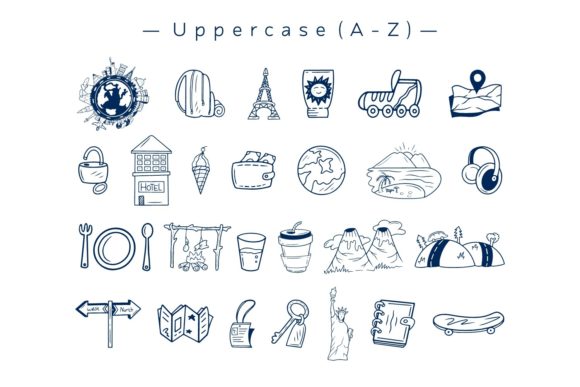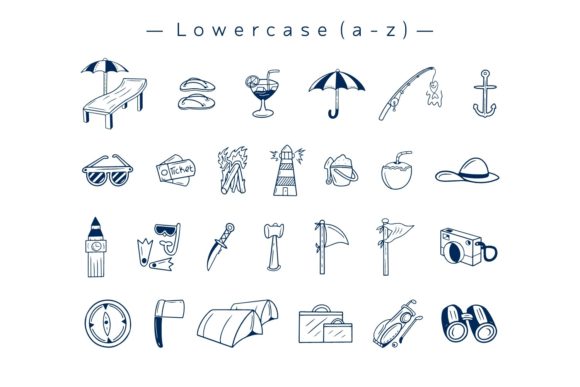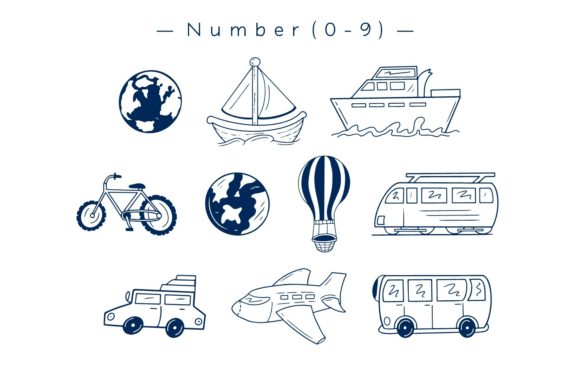
Unlock Your Creativity with After Lock Font
Are you tired of using the same old fonts in your designs? Do you want to add a touch of adventure and playfulness to your projects? Look no further than the After Lock Font, a lovely and useful dingbats font that’s sure to take your designs to the next level. In this article, we’ll explore the features and benefits of After Lock Font, and why it’s a must-have for designers and crafters alike.
What is After Lock Font?
After Lock Font is a unique and creative dingbats font that’s perfect for adding a touch of whimsy to your designs. This adventurous font is designed to make each of your projects more interesting and lively, and its versatility makes it suitable for a wide range of applications, from crafting and scrapbooking to graphic design and digital art.
Key Features of After Lock Font
- Unique and Creative Design: After Lock Font features a distinctive and eye-catching design that’s sure to grab attention. Its dingbats style makes it perfect for adding a touch of playfulness to your designs.
- Highly Versatile: This font is suitable for a wide range of applications, from crafting and scrapbooking to graphic design and digital art.
- Easily Readable: Despite its creative design, After Lock Font is easily readable, making it perfect for use in a variety of contexts.
Why Designers and Crafters Love After Lock Font
So why do designers and crafters love After Lock Font? Here are just a few reasons:
- Adds a Touch of Whimsy: After Lock Font adds a touch of whimsy and playfulness to any design, making it perfect for projects that require a bit of personality.
- Perfect for Crafting and Scrapbooking: This font is a must-have for crafters and scrapbookers who want to add a unique and creative touch to their projects.
- Great for Graphic Design: After Lock Font is also perfect for graphic designers who want to add a bit of personality to their designs.
Tips for Using After Lock Font
Here are a few tips for using After Lock Font in your designs:
- Use it for Headings and Titles: After Lock Font is perfect for use in headings and titles, where its creative design can really shine.
- Mix it with Other Fonts: Try mixing After Lock Font with other fonts to create a unique and interesting design.
- Use it for Icons and Graphics: This font is also perfect for use in icons and graphics, where its dingbats style can add a touch of personality.
In conclusion, After Lock Font is a lovely and useful dingbats font that’s perfect for designers and crafters who want to add a touch of adventure and playfulness to their projects. With its unique and creative design, high versatility, and ease of use, this font is a must-have for anyone looking to take their designs to the next level. So why wait? Add After Lock Font to your library today and see the difference it can make!